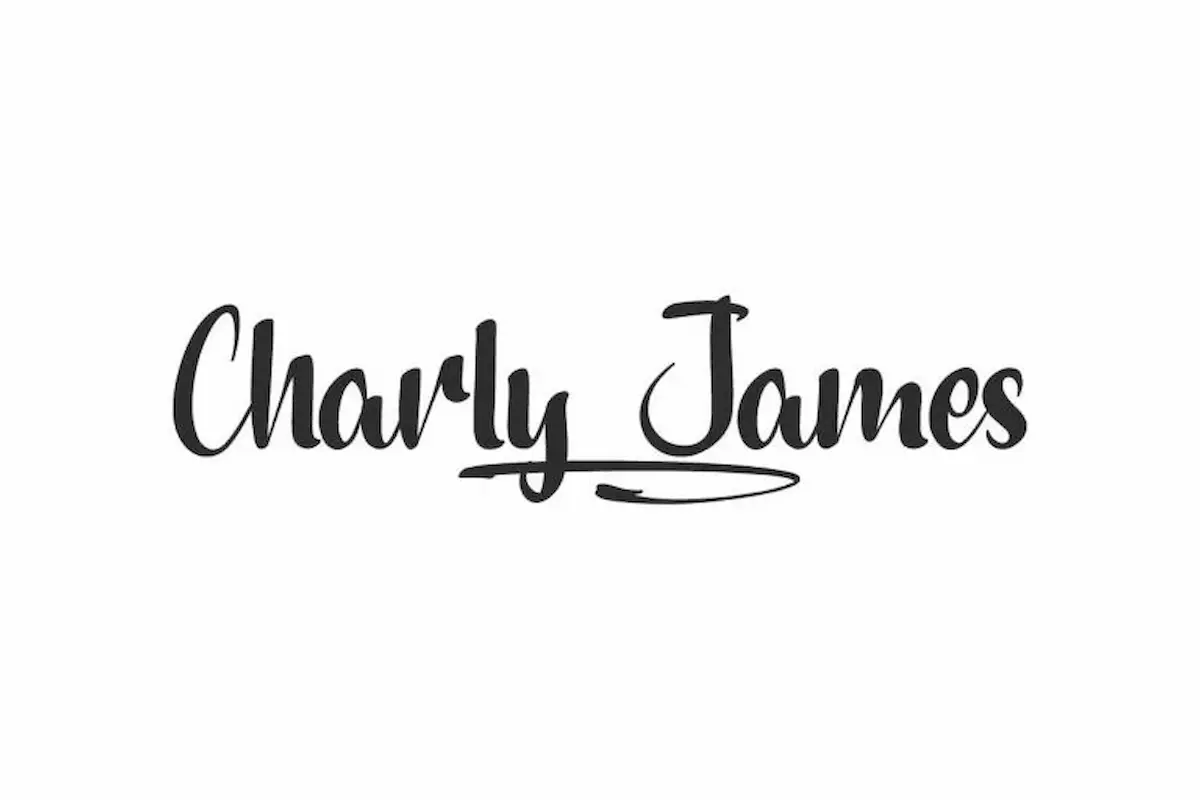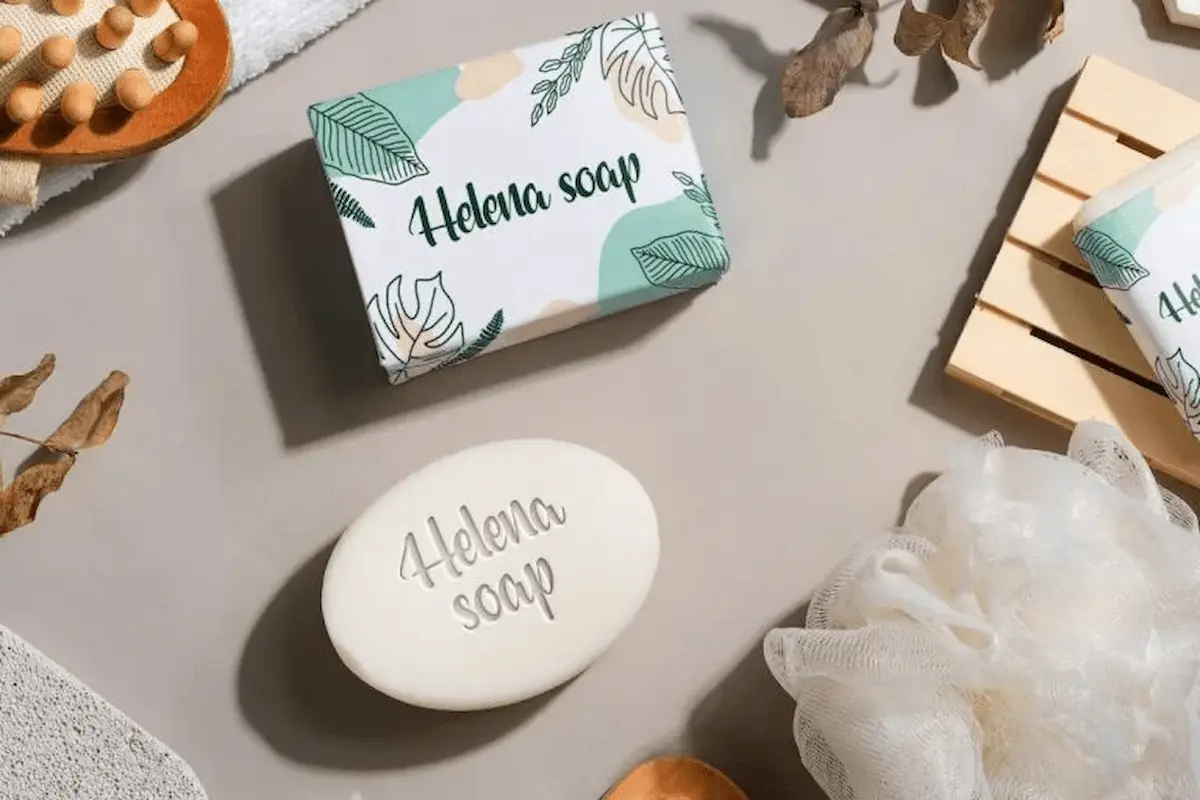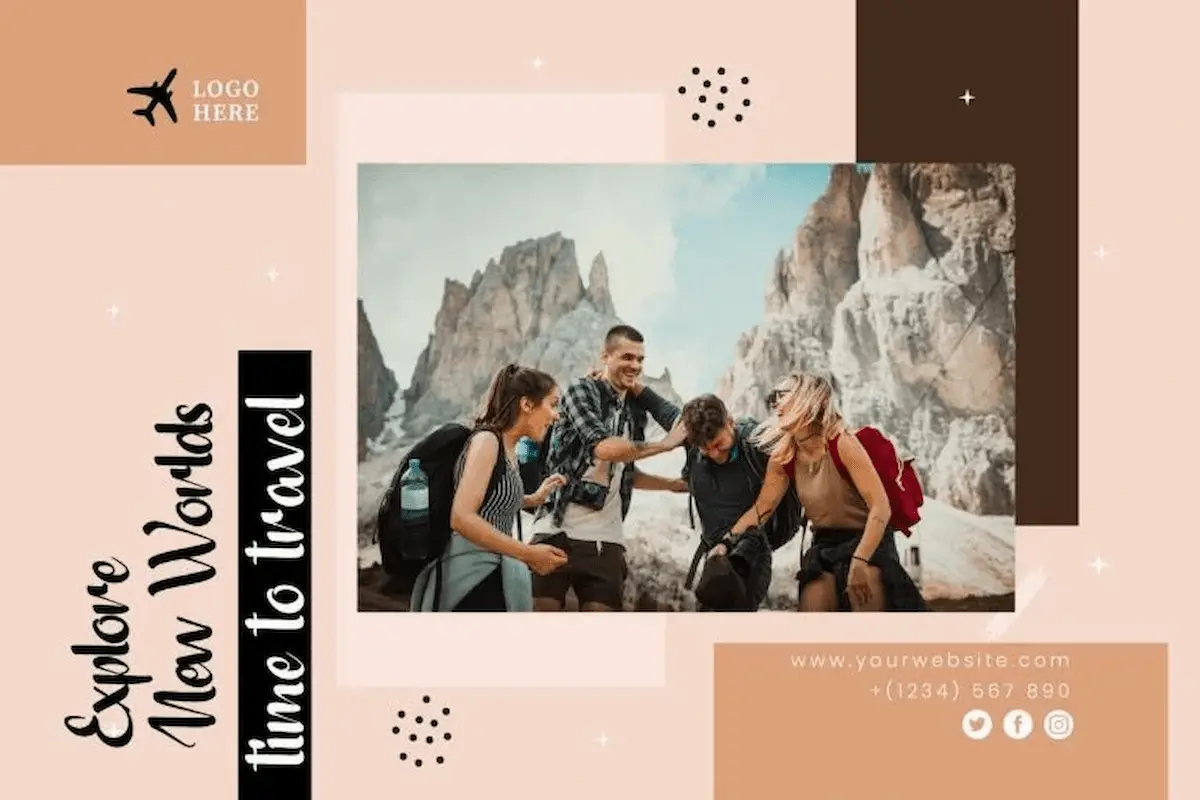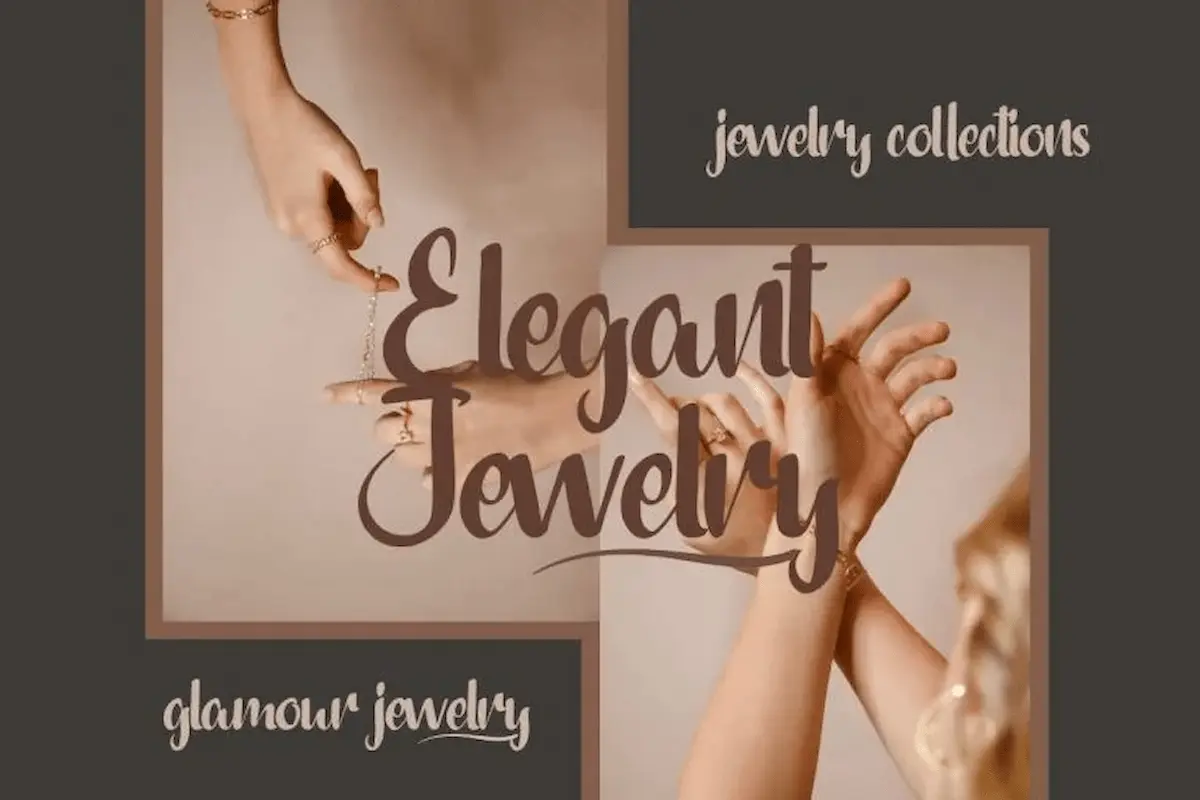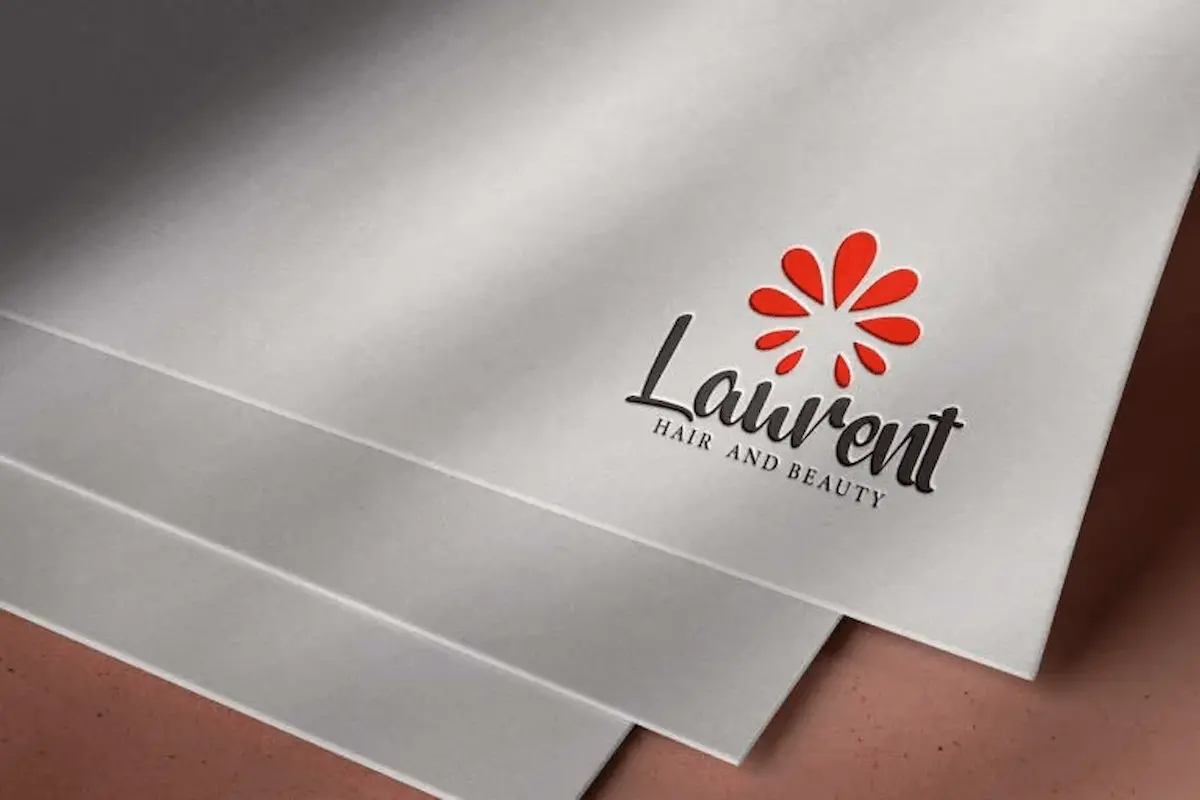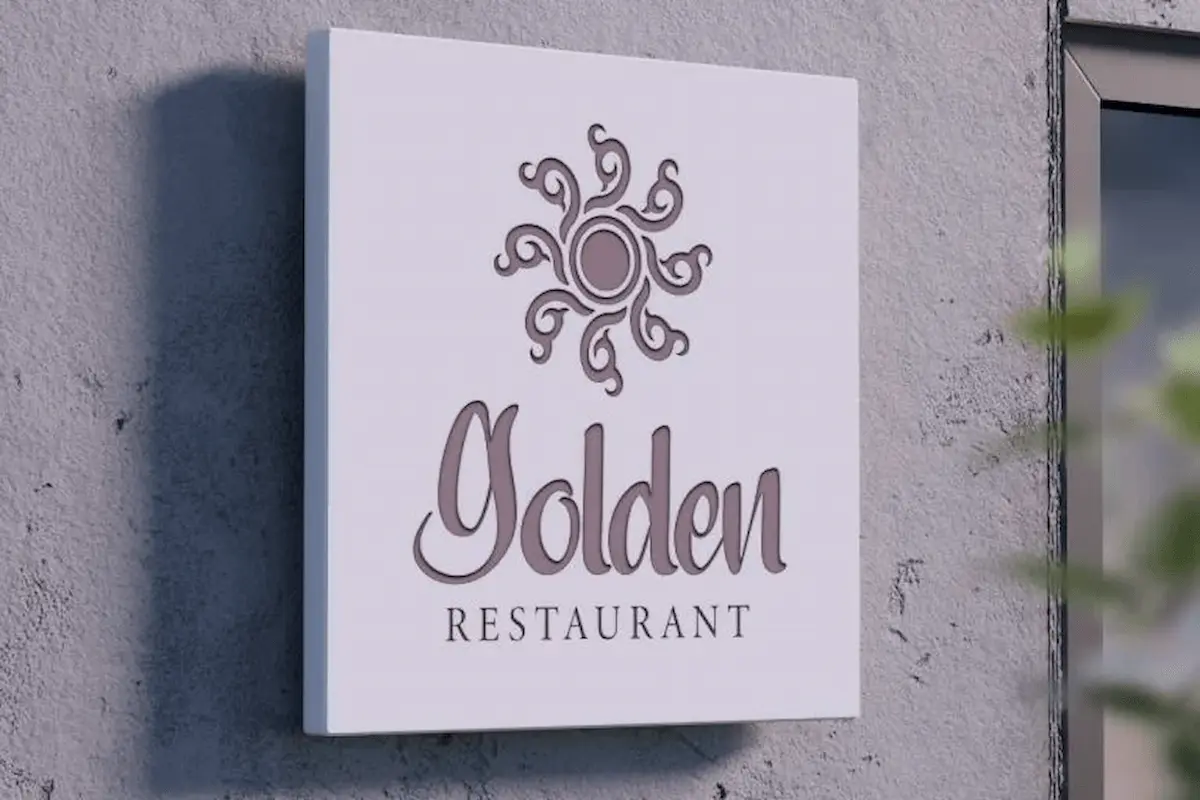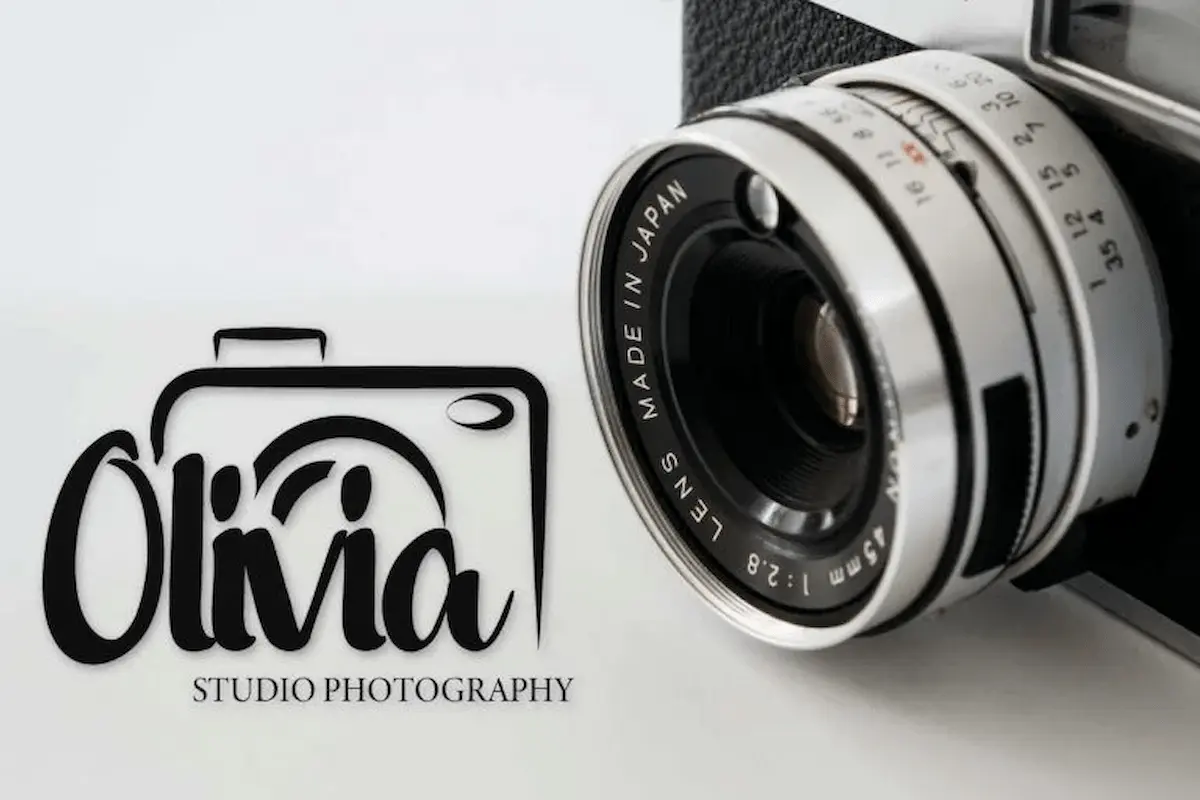
Charly James Font is a casual handwriting calligraphic font by NihStudio. Get the font for logos, brandings, events etc
Charly James Font  is a casual calligraphy font by NihStudio. Try the font DEMO by typing your own text below. Please note that the test font below is a demo file, so some specimens/ characters will not show up.
Charly James Font can be used as a signature and will be great for any projects (require extended license) including : branding, logo, stationery, business card, signage, flyer, brochure etc. The theme style of the font is modern, elegant, luxury, glamour, gold, vintage, stylish, sophisticated and classic light calligraphic style. Many businesses will be match for this typeface: wedding, events, real estate, architect, law firm, florist, gardening, makeup artist, travel, hotel, musician etc
This font has a stunning characters set, perfectly managed with well spaced and kerning. Accessible in the Adobe Illustrator, Adobe Photoshop, Adobe InDesign, even work on Microsoft Word.